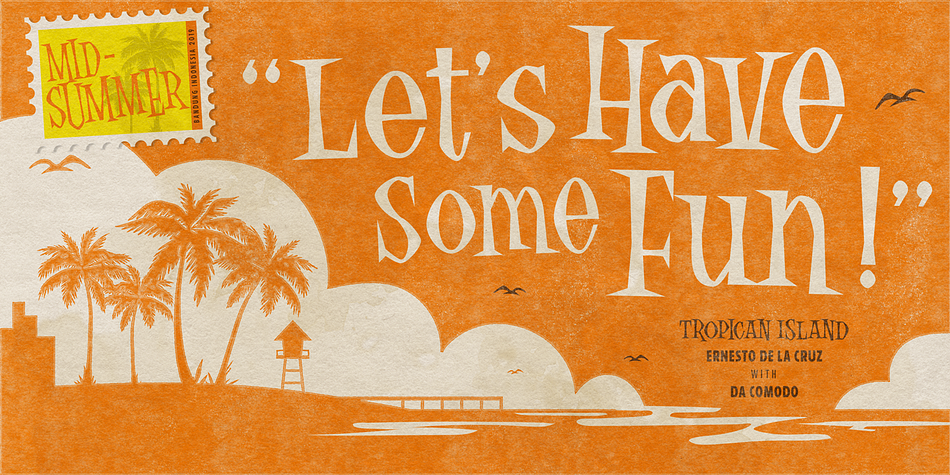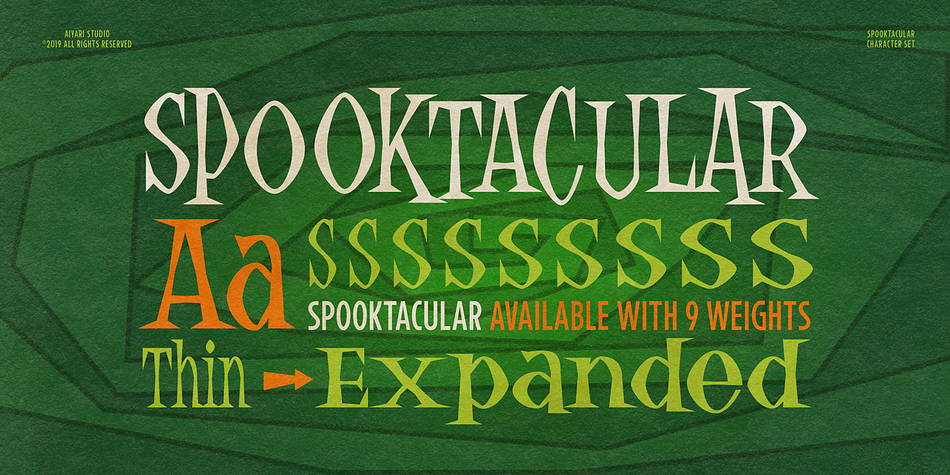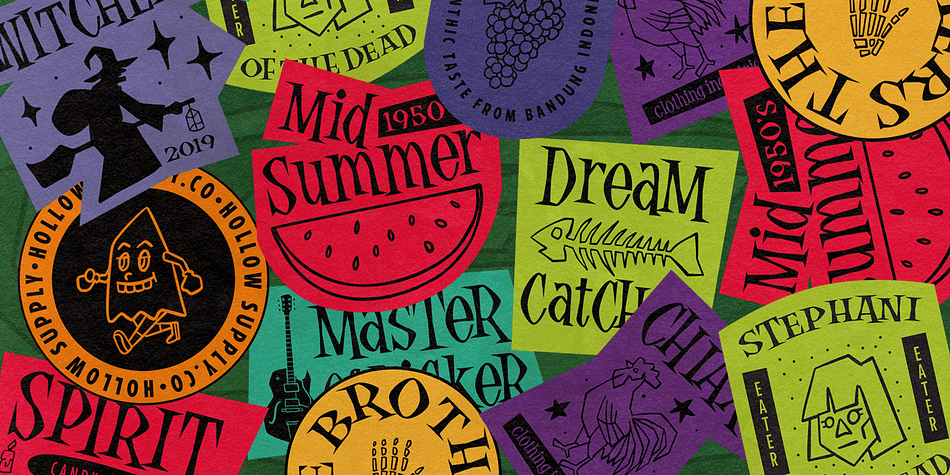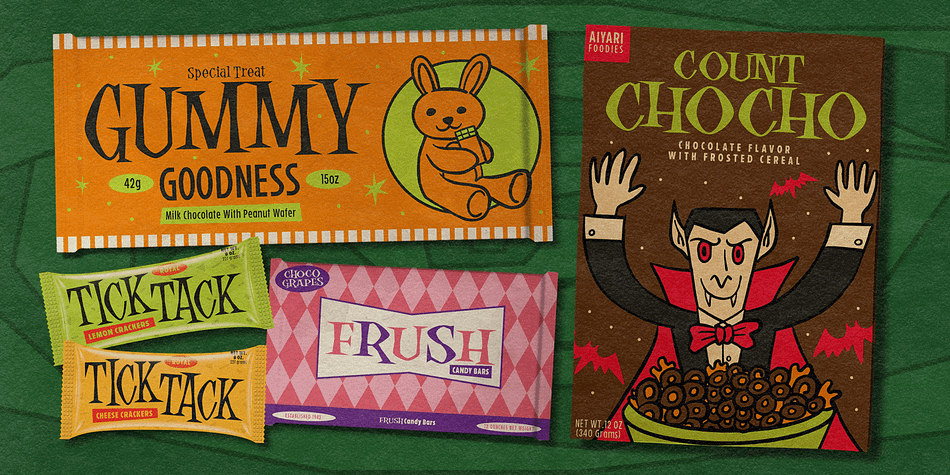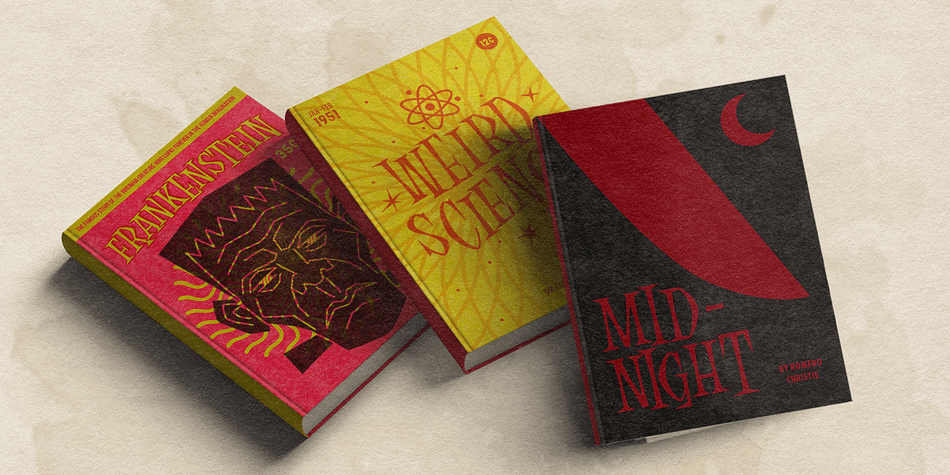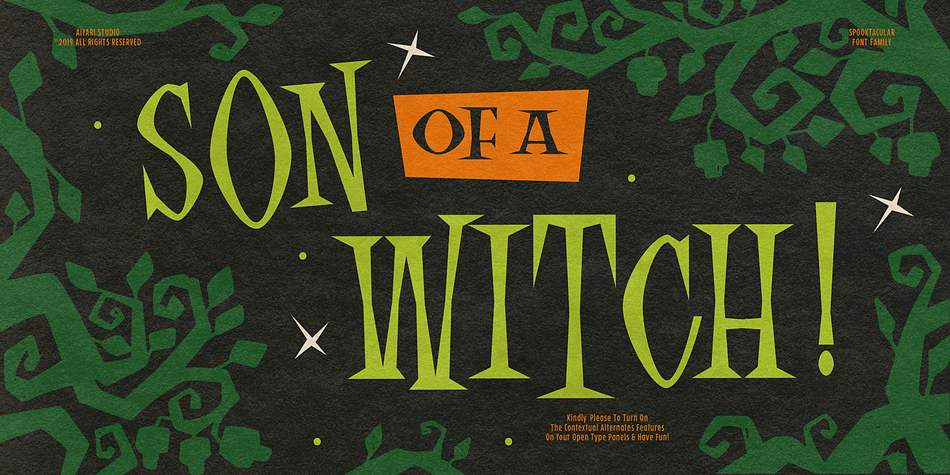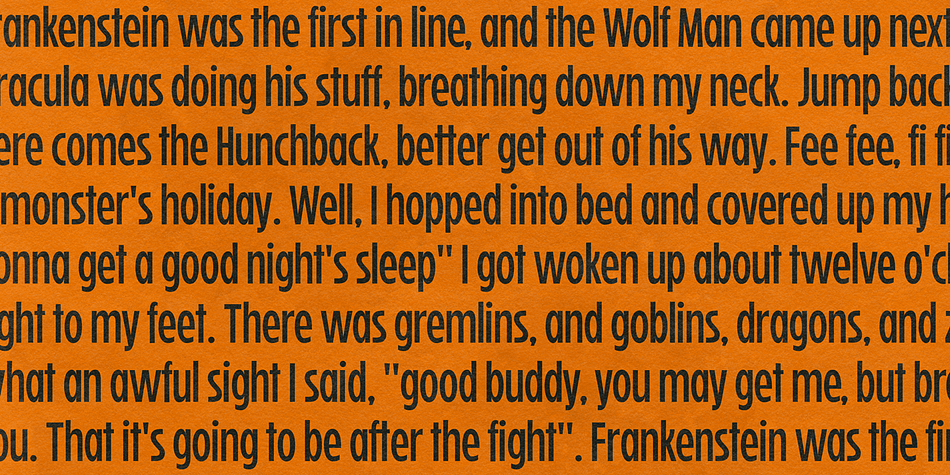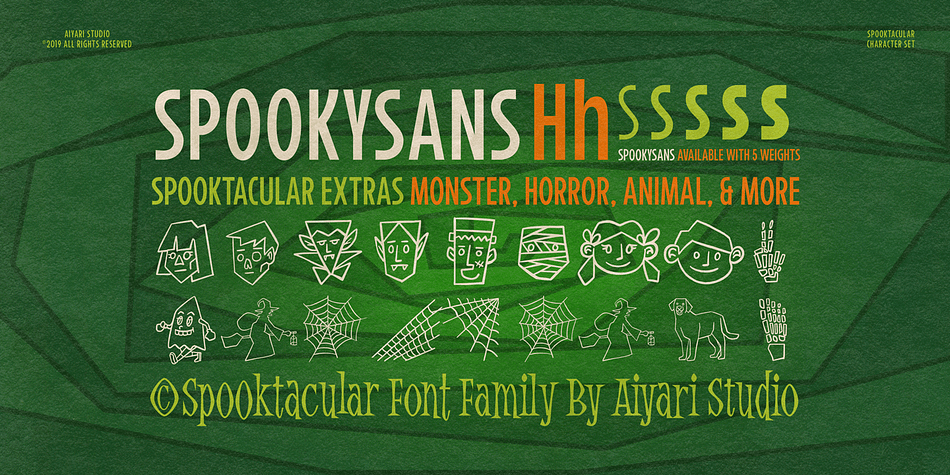
Designed by Ricky Rinaldi, Spooktacular is a multiple classification font family. This typeface has fifteen styles and was published by Aiyari.
Spooktacular font family is the fusion of beatnik movement on 1950’s, vintage horror movie, and vintage comics. The typeface offer the magics of open type features such contextual alternate and stylistic alternate which make the typeface looks more playful. Spooktacular comes with extra doddle dingbats to make your design looks perfect.
Spooktacular Font Family best uses for headings, Logo type, quotes, apparel design, invitations, flyer, poster, greeting cards, product packaging, book cover, printed quotes, cover album, movie, etc